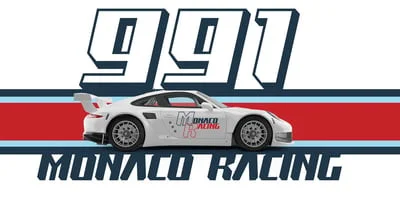
Super Drift Font
Super Drift Font is perfect for racing team branding, automotive performance companies, high-speed car modification shops, adrenaline sports marketing, motorsport event posters, drift competition signage, speed-focused gaming projects, racing merchandise designs, and dynamic automotive social media content. This high-octane typeface brings racing velocity and automotive excitement to both digital and print design applications.
Super Drift Font is exciting because it captures the thrilling speed and precision control of professional drift racing, making it an exceptional choice for designers who want to convey high-performance energy with authentic motorsport appeal. Its dynamic letterforms and velocity-inspired character provide the perfect combination of racing sophistication and functional speed, ensuring your projects communicate adrenaline, precision, and racing excellence that resonates with audiences seeking genuine motorsport experiences and high-performance automotive culture.
The Super Drift Font family includes speed weight variations and racing elements, featuring regular and bold weights with complementary dynamic styles, velocity-inspired ligatures, and motorsport decorative flourishes. Each style maintains consistent racing aesthetics while offering flexibility for different automotive applications, allowing designers to create high-speed visual systems that reflect racing values and motorsport sophistication.
Whether you're designing for automotive brands, racing organizations, or speed-focused projects, Super Drift Font delivers authentic racing appeal and motorsport sophistication that connects with audiences seeking genuine high-performance experiences and automotive excellence. This premium typeface offers designers the racing energy and speed elegance needed to create designs that communicate automotive performance, racing precision, and motorsport authenticity effectively. The font's dynamic character makes it perfect for racing branding, automotive campaigns, and speed applications where authentic motorsport credibility is essential. Download Super Drift Font today and accelerate your creative projects with genuine racing sophistication and high-speed typography excellence that defines automotive design standards.